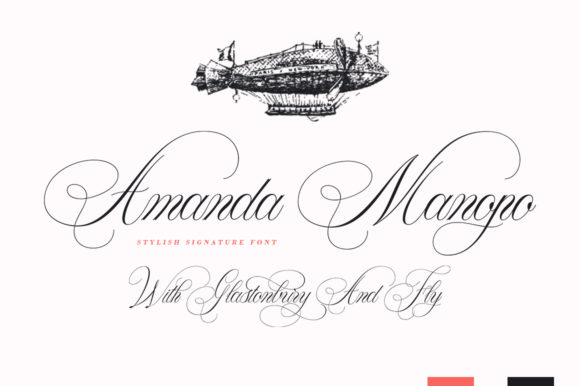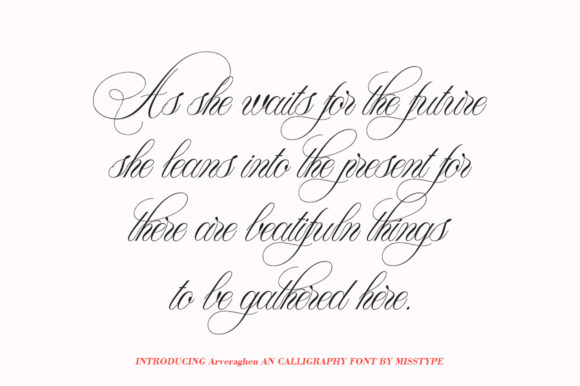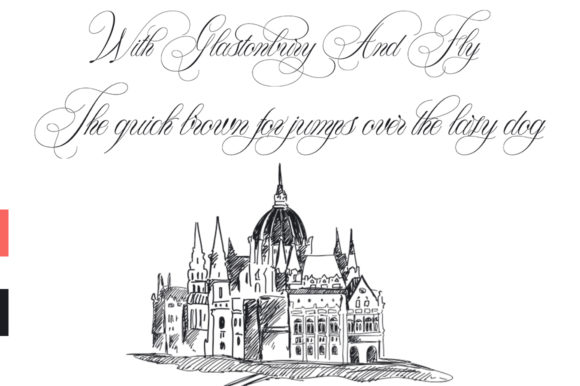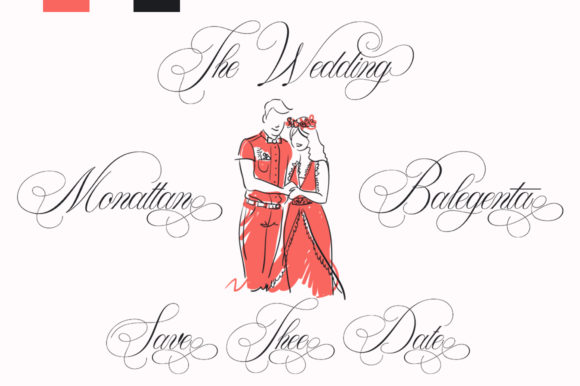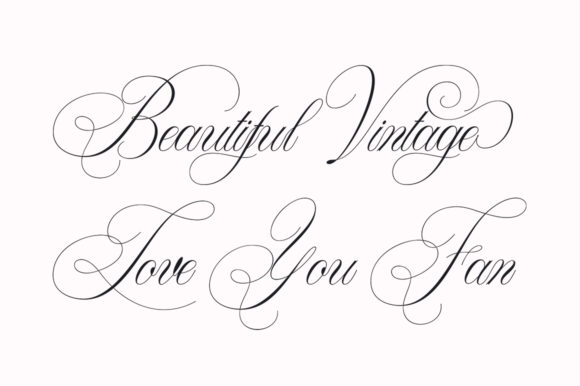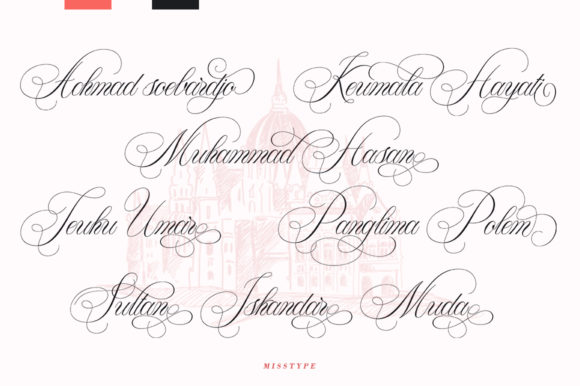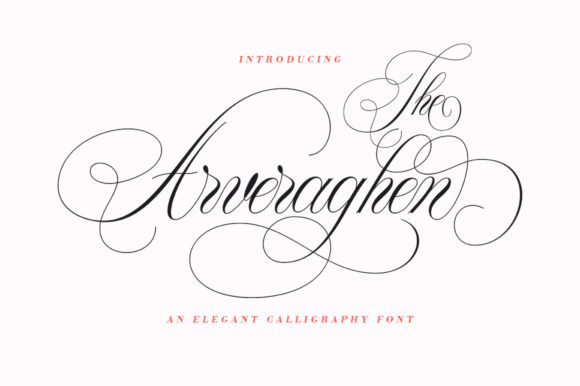
The Elegant Arveraghen Font: A Designer’s Delight
I’ll never forget the time I was working on a wedding invitation project, and my client asked for a font that was ” elegant, yet playful, and would make their special day feel truly unforgettable.” I scoured the internet, tried out countless fonts, but none seemed to fit the bill. That was until I stumbled upon the beautiful Arveraghen font. ✨
Arveraghen is a delicate and elegant handwritten font that has become a staple in my design toolkit. Its PUA encoding makes it incredibly easy to access all the glyphs and swashes, allowing me to create stunning designs with ease. In this article, I’ll share my honest review of the Arveraghen font, provide a practical guide on how to use it, and explore similar fonts that you might love.
An Honest Review of Arveraghen Font
- ✨ Delicate and elegant handwritten style
- ✅ Varying baseline and smooth lines for a natural look
- ✅ Gorgeous glyphs and stunning alternates for added creativity
- ✅ Perfect for wedding invitations, thank you cards, quotes, and more
While Arveraghen is an amazing font, there are a few things to keep in mind: 🤔
- ⚠️ Some users may find the font a bit too delicate for certain design projects
- ⚠️ May require some experimentation to get the perfect swash combination
The Story Behind Arveraghen Font
Arveraghen is a font that’s close to the heart of its designer, who wanted to create a typeface that would evoke the elegance and sophistication of handwritten calligraphy. Inspired by the beauty of nature and the art of lettering, Arveraghen is a font that’s both delicate and powerful.
Q: What is PUA encoding, and how does it work?
PUA (Private Use Area) encoding is a way of encoding fonts that allows for a large number of glyphs and swashes to be accessed easily. This means that you can access all the beautiful glyphs and swashes in Arveraghen without having to use complicated keyboard shortcuts or software.
Q: Is Arveraghen a difficult font to use?
Not at all! Arveraghen is a user-friendly font that’s designed to be easy to use, even for those who are new to design. With its PUA encoding and OpenType features, you can create stunning designs with ease.